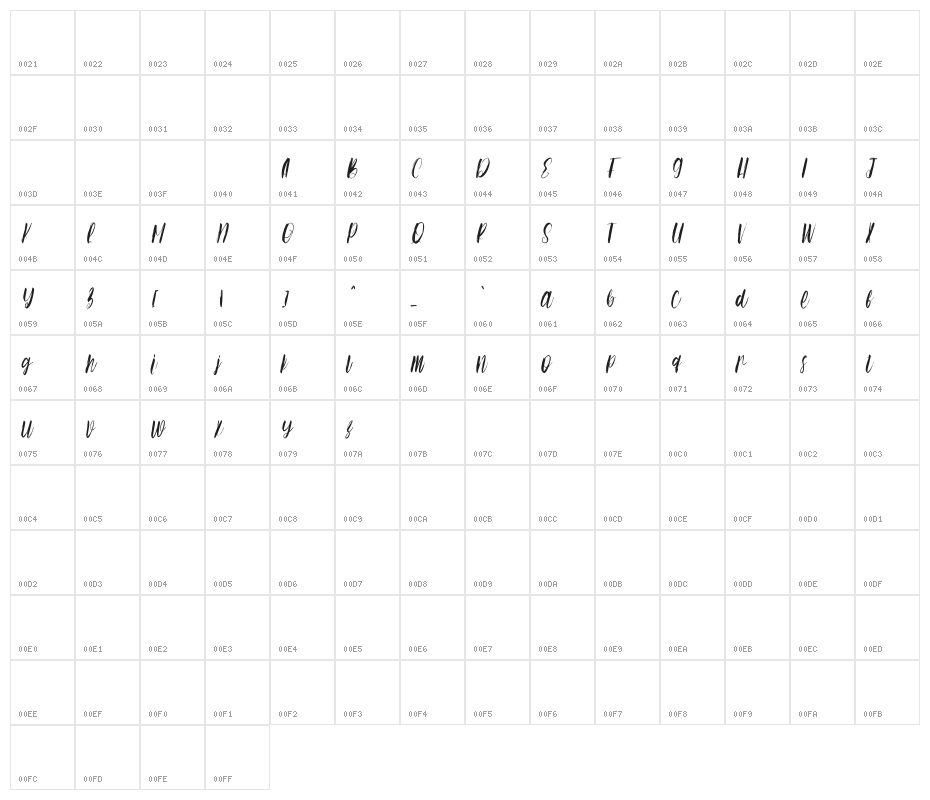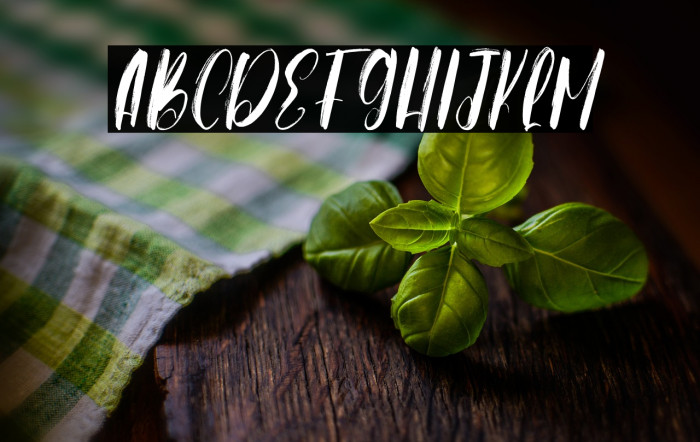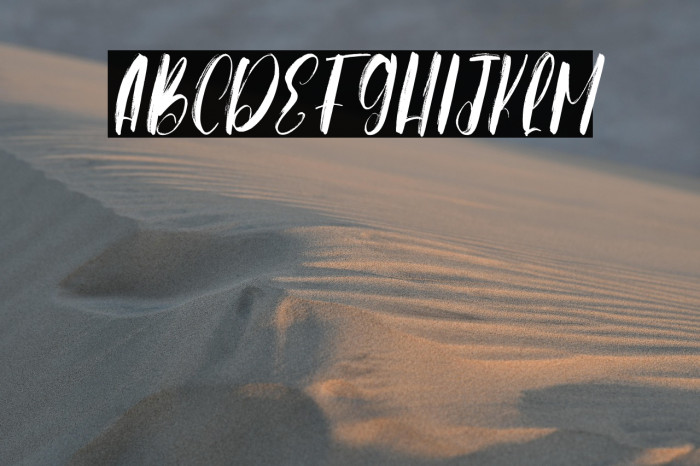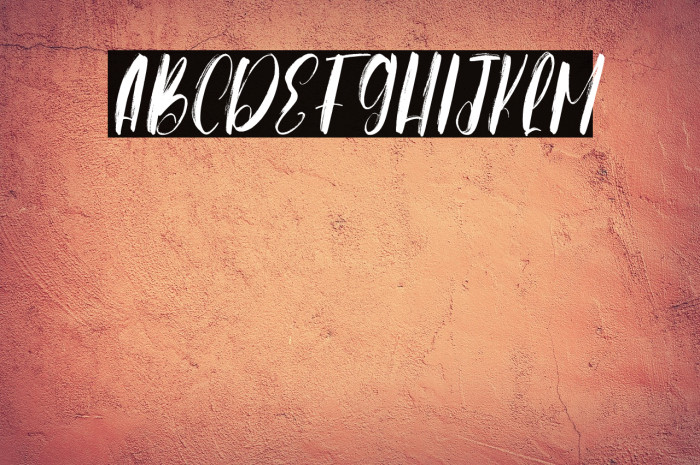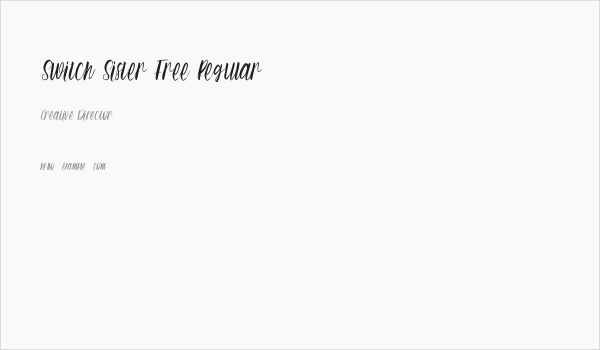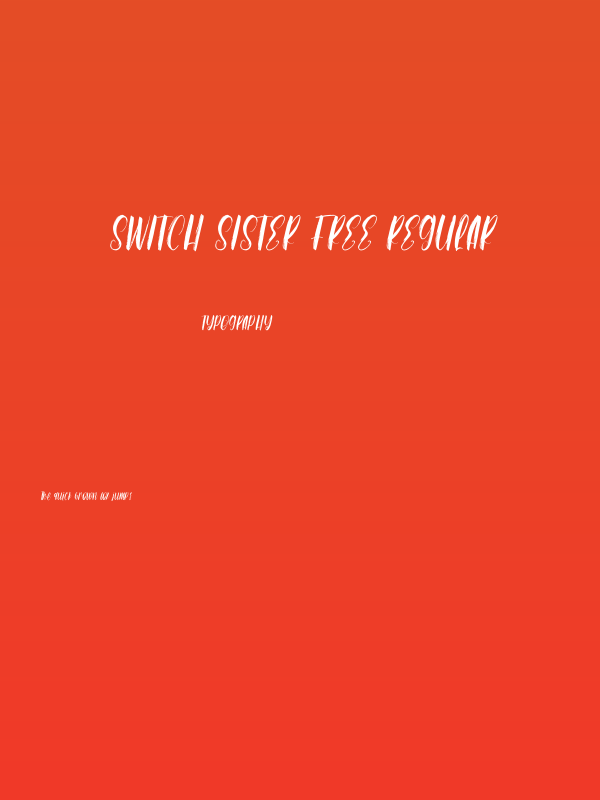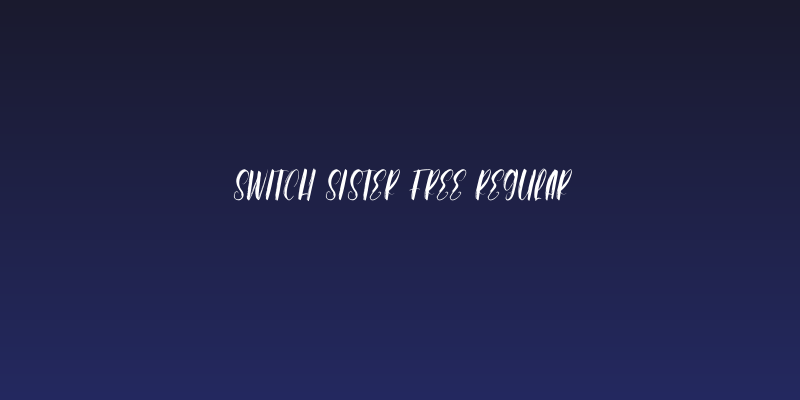
Switch Sister Free Regular Font
Switch Sister Free Regular Description
This font features a dynamic and expressive handwritten style, characterized by its fluid and flowing strokes. The letters exhibit a natural, brush-like texture, creating an organic and artistic appearance. The uppercase and lowercase letters maintain a consistent style, with varying stroke widths that add to the font's lively and energetic feel. The characters are slightly slanted, enhancing the casual and informal vibe. This font is ideal for projects that require a personal touch, such as invitations, greeting cards, or creative branding. Its unique style makes it stand out, offering a sense of individuality and creativity.
| Proposed Projects | Ideal for invitations, greeting cards, creative branding, and artistic projects. |